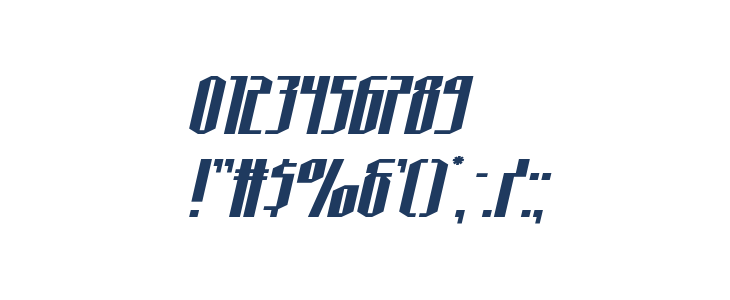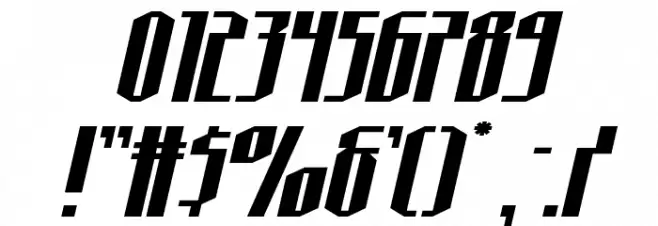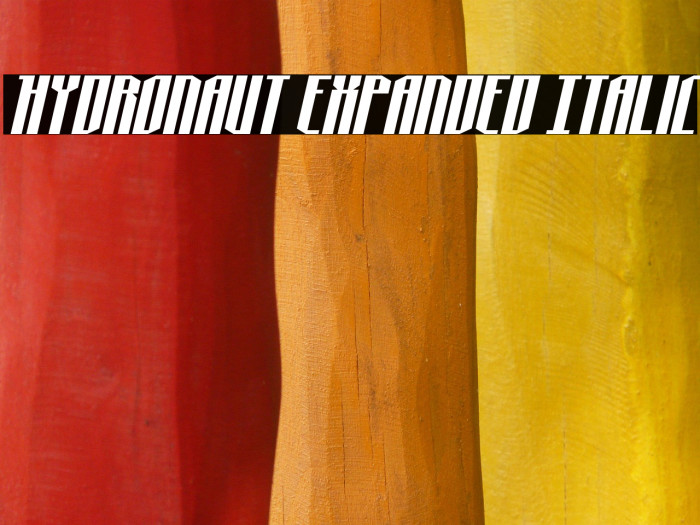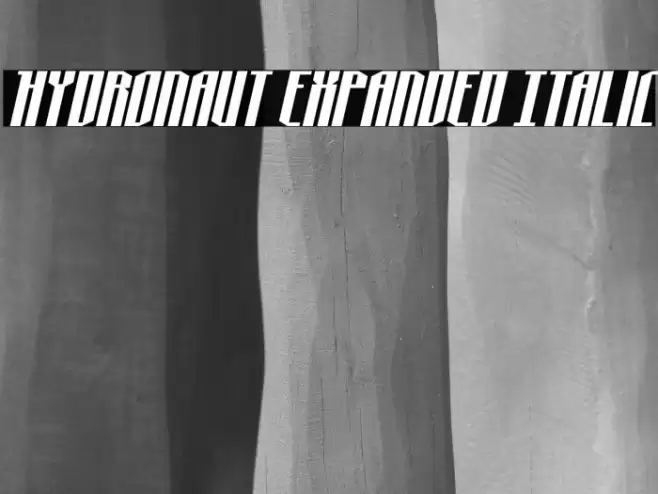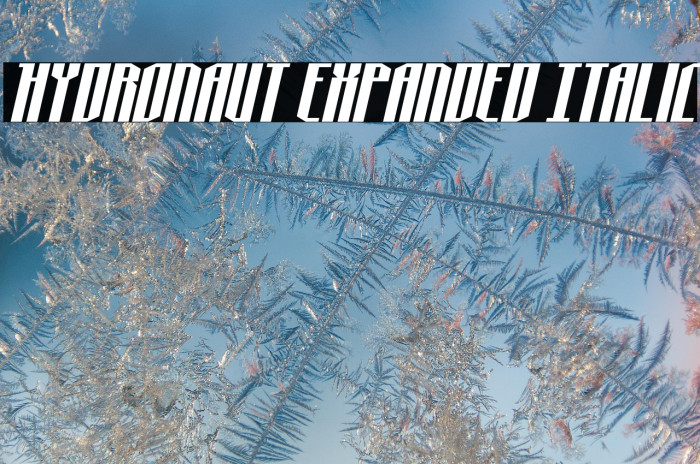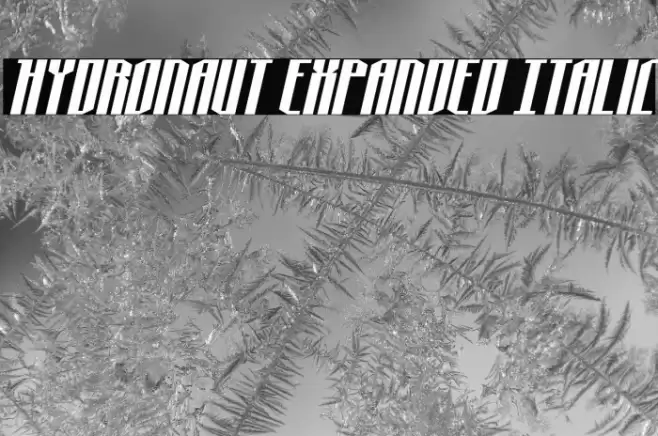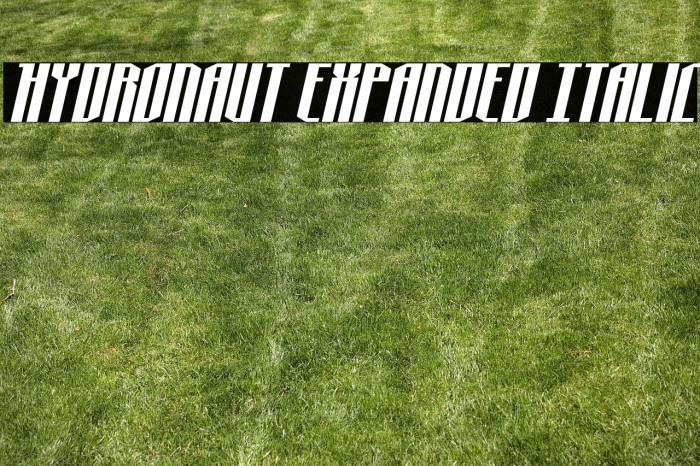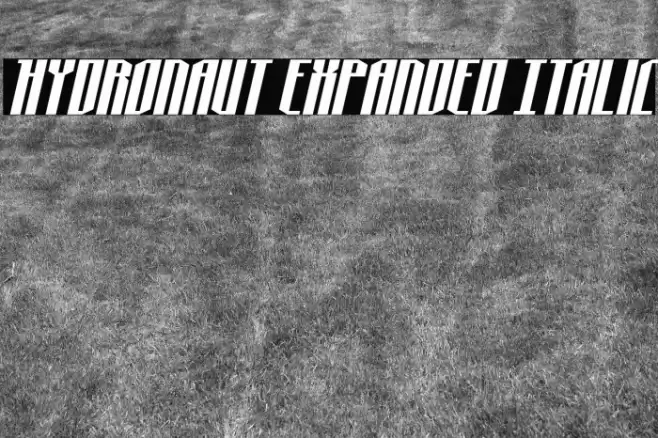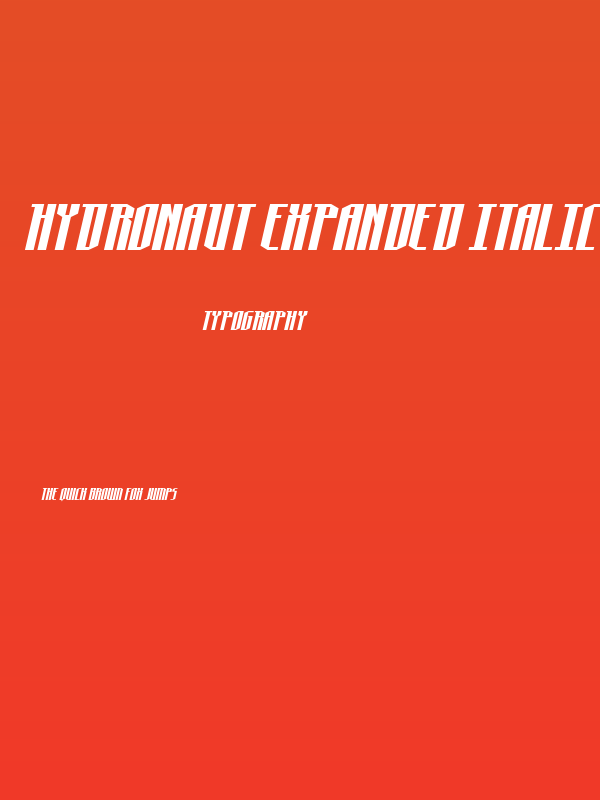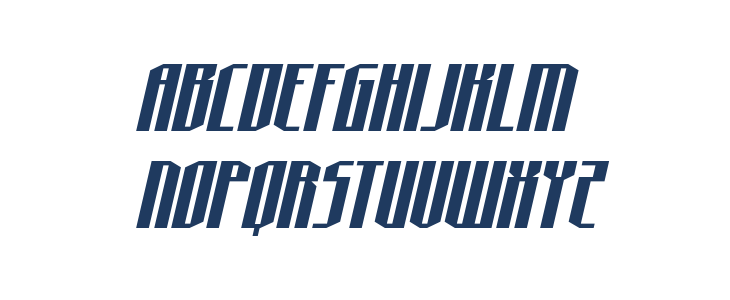
Hydronaut Expanded Italic Font
Hydronaut Expanded Italic Description
This font features a bold and dynamic design with an expanded and italicized style. The characters are sharply angled, giving a sense of movement and speed. The uppercase and lowercase letters maintain a consistent slant, enhancing the italic effect. The numbers and special characters follow the same design principles, ensuring uniformity across all glyphs. The font's expanded width allows for a strong visual impact, making it suitable for attention-grabbing headlines and titles. Its modern aesthetic is complemented by a high contrast in stroke thickness, which adds to its bold appearance.
| Proposed Projects | Ideal for sports branding, dynamic posters, futuristic designs, and impactful headlines. |